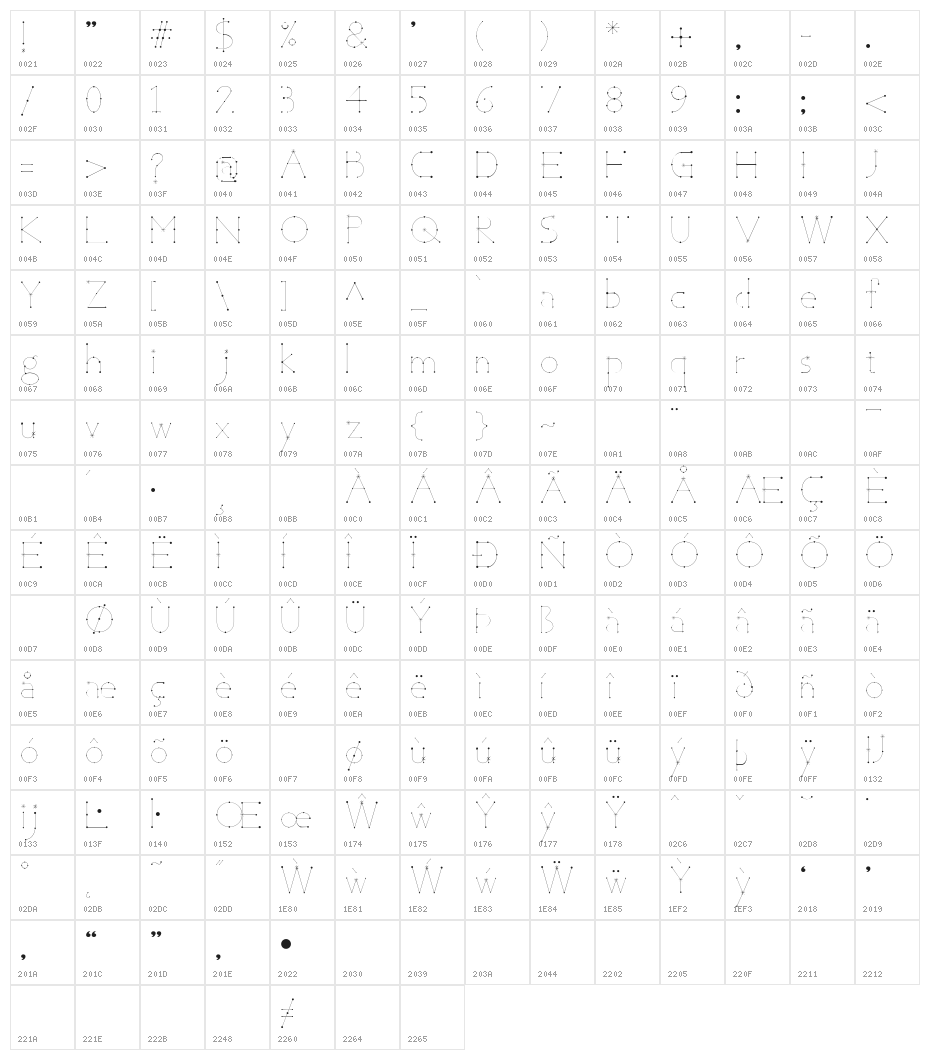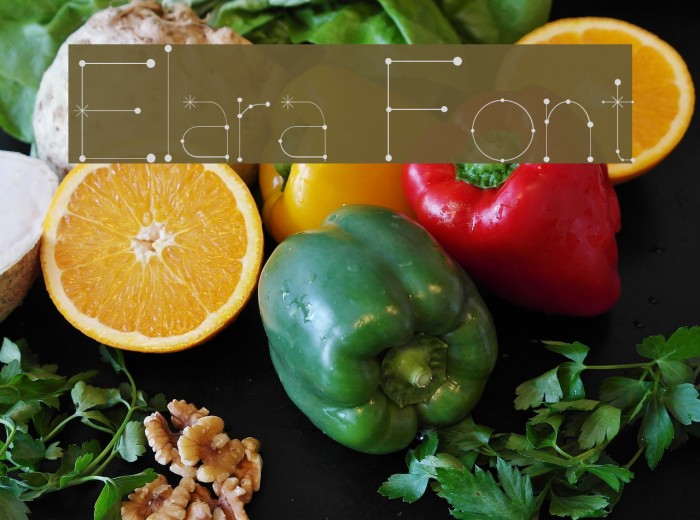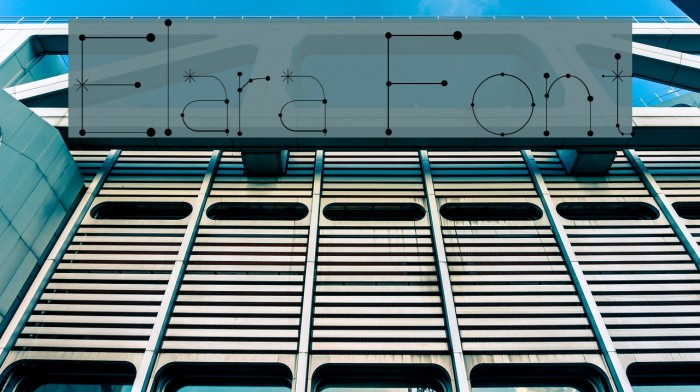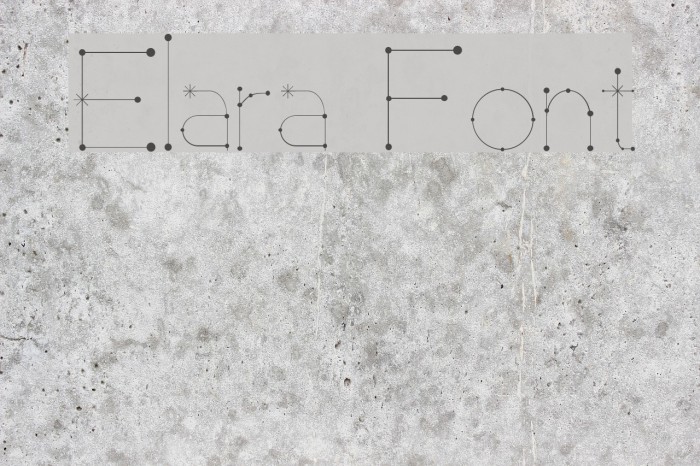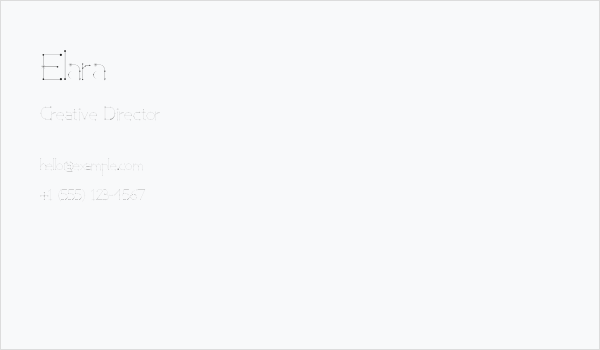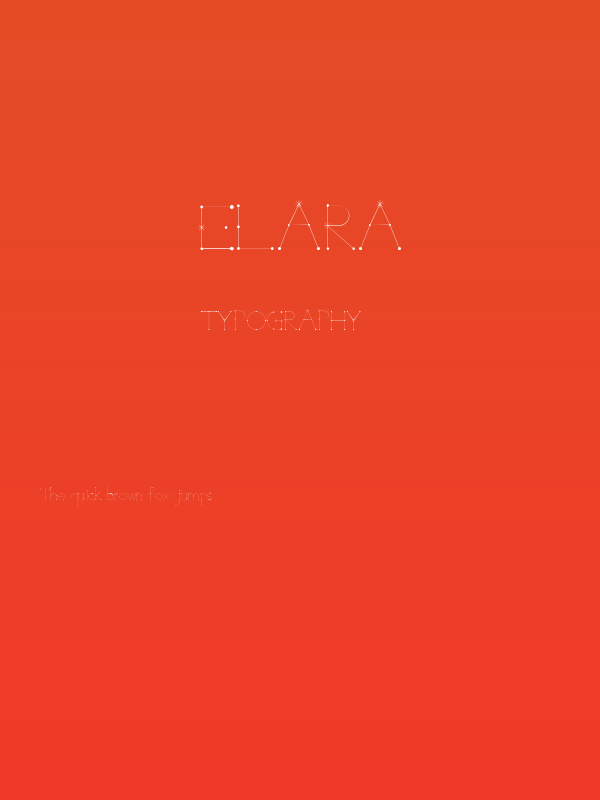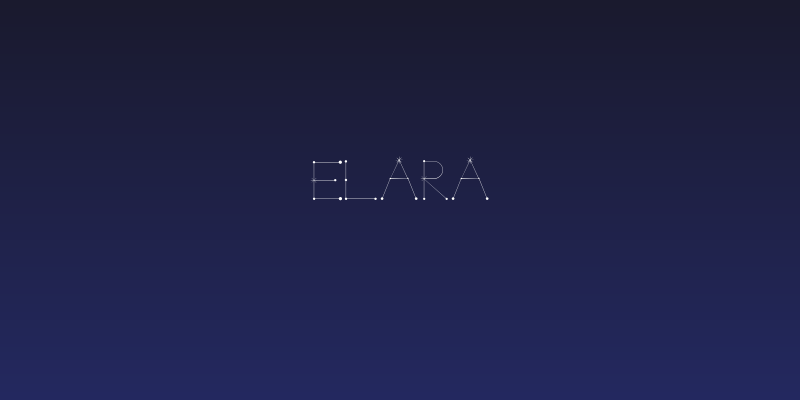
Elara Font
Elara Description
This font features a unique and modern design, characterized by its use of geometric shapes and lines connected by dots. The letters are constructed with a series of straight and curved lines, intersected by small circles, creating a futuristic and technical appearance. The uppercase and lowercase letters maintain a consistent style, with a minimalistic and airy feel. Numbers and special characters follow the same design principles, ensuring a cohesive look throughout. The font's distinct style makes it suitable for creative and innovative projects, where a contemporary and unconventional aesthetic is desired.
Proposed ProjectsIdeal for tech branding, digital art, modern posters, and innovative product packaging.